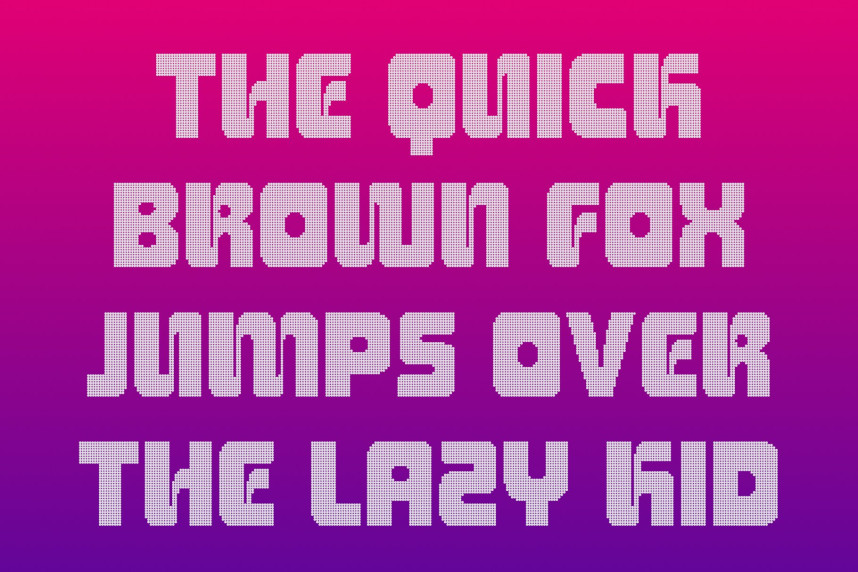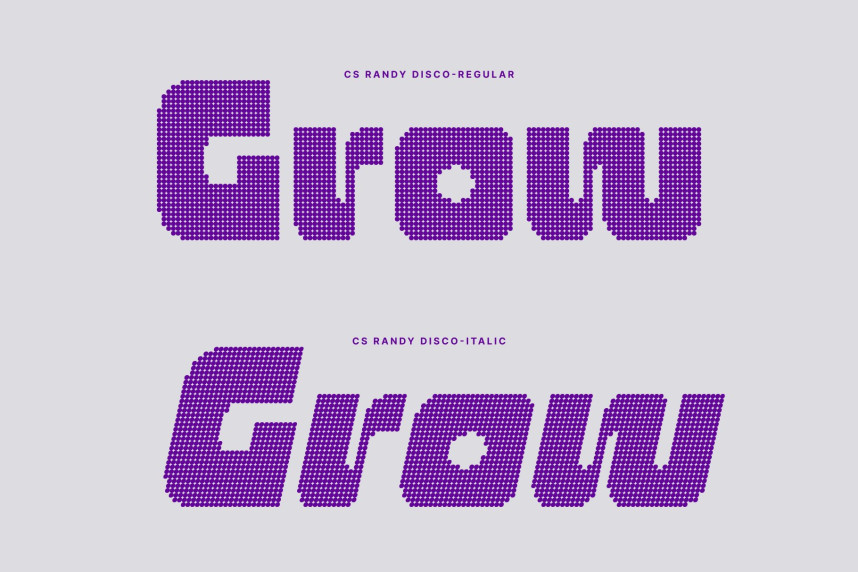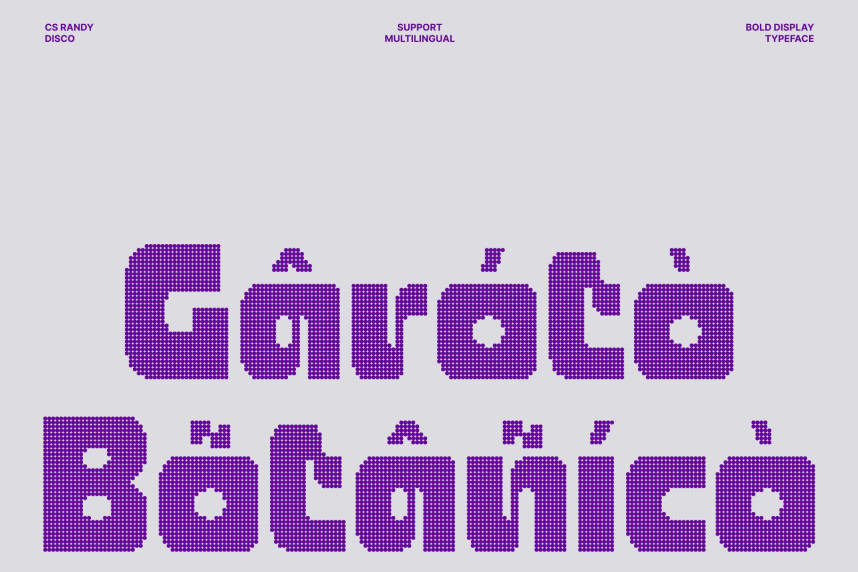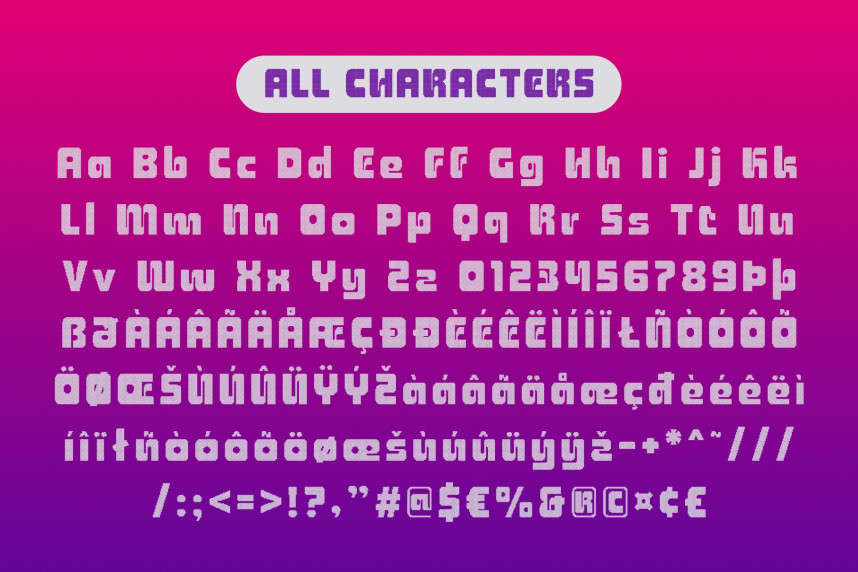
CS Randy Disco Font
CS Randy Disco Font – Bold Display Font with Futuristic Techno Energy Bold Display Font with Futuristic, Y2K Disco Influence. This is a bold display font built from clean lines and strong geometric forms, infused with futuristic techno styling and Y2K disco culture. Inspired by digital nightlife, cyber aesthetics, and early-2000s club visuals, this font delivers a striking look that feels energetic, nostalgic, and unmistakably forward-looking.